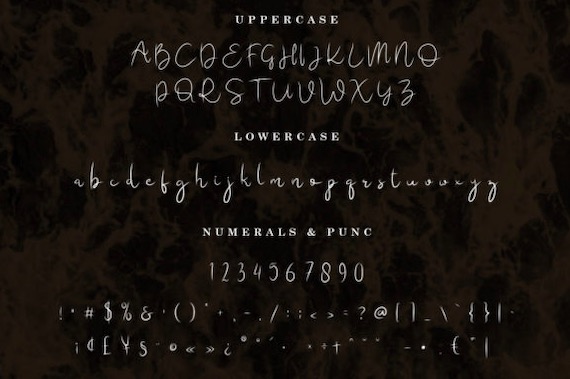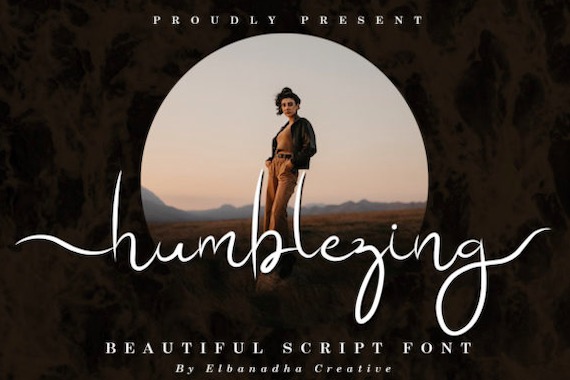
Humblezing is a fashionable and delicate handwritten script font. And it was created and shared by Elbanadha Creative. This script font is very perfect for any branding designs, for example, logos, t-shirt printing, creative products, and more. This font is PUA encoded which means you can access all of the glyphs and swashes with ease!
Humblezing Handwritten Script Font